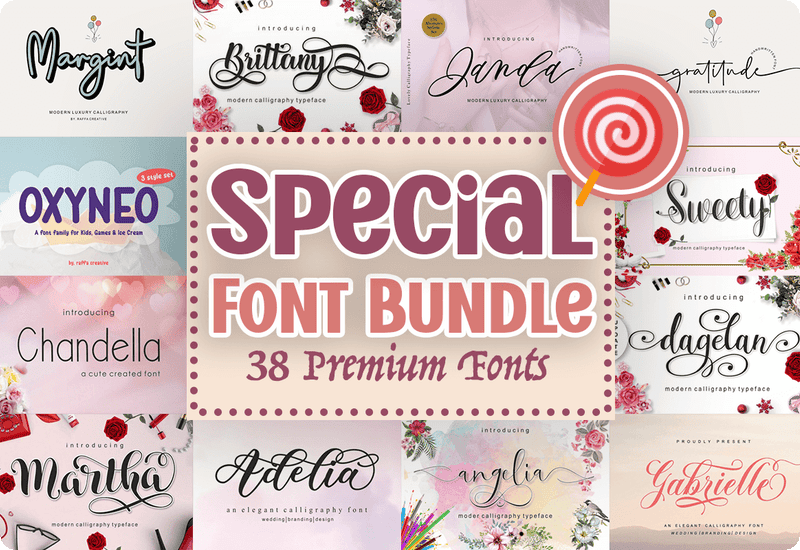
The Special Font Bundle is a premium collection of 38 beautifully designed fonts that cater to graphic designers, business owners, and creatives seeking high-quality typography. Whether you need fonts for branding, invitations, logos, social media graphics, or digital projects, this carefully curated selection includes elegant script fonts, modern sans-serif fonts, and artistic handwritten fonts.
What’s Inside This Font Collection?
This bundle features a wide range of handwritten, script, sans-serif, and display fonts, making it ideal for various design needs:
✔ Elegant Script Fonts – Perfect for wedding invitations, greeting cards, and upscale branding
✔ Modern Sans-Serif Fonts – Suitable for business branding, websites, and minimalist design projects
✔ Stylish Handwritten Fonts – Great for personalized stationery, artistic prints, and creative typography
✔ Decorative Display Fonts – Perfect for bold headlines, posters, and eye-catching graphics
Some of the top-quality fonts included in this bundle:
• The Kingdom – A bold and sophisticated display font for impactful designs
• Gratitude – A delicate script font with a personal, handwritten touch
• Authentic – A clean, stylish script font for branding and promotional materials
• Himalaya – A flowing calligraphy font, great for wedding and invitation designs
• Liberty – A classic handwritten font that adds warmth and personality
• Columbia – A professional font with a timeless, elegant appearance
• Mendiang – A casual and artistic font perfect for social media and branding
• Better – A refined, modern script font for sophisticated projects
With 38 carefully crafted fonts, this collection ensures you have access to versatile, professional-quality typography.
Premium Fonts in this Special Font Bundle:
• Chandella Fuentes Caligráficas Fuente
• The Kingdom Display Font
• Aragon Fuentes Display Fuente
• Gratitude Script & Handwritten Font
• Elizabeth Script & Handwritten Font
• Margint Polices Manuscrites Police
• Humble Sans Serif Font
• Sweety Skript-Schriftarten Schriftart
• Moonlight Script & Handwritten Font
• Authentic Script & Handwritten Font
• Oxyneo Sans Serif Font
• Faith Script & Handwritten Font
• Supposed Script & Handwritten Font
• Ambien Script & Handwritten Font
• Himalaya Script & Handwritten Font
• Lemonade Script & Handwritten Font
• Liberty Script & Handwritten Font
• Dahlia Script & Handwritten Font
• Martha Script & Handwritten Font
• Valentines Script & Handwritten Font
• Gathering Script & Handwritten Font
• Harmony Script & Handwritten Font
• Columbia Fuentes Caligráficas Fuente
• Gabrielle Script & Handwritten Font
• Belachan Skript-Schriftarten Schriftart
• Toretto Script & Handwritten Font
• Hoster Script & Handwritten Font
• Dagelan Script & Handwritten Font
• Melodi Script & Handwritten Font
• Brittany Skript-Schriftarten Schriftart
• Tobata Script Fonts Font
• Better Script & Handwritten Font
• Mendiang Script & Handwritten Font
• Angelia Script & Handwritten Font
• Putry Font Corsivi Font
• Adelia Script & Handwritten Font
• Janda Script & Handwritten Font
• Ferguson Script & Handwritten Font